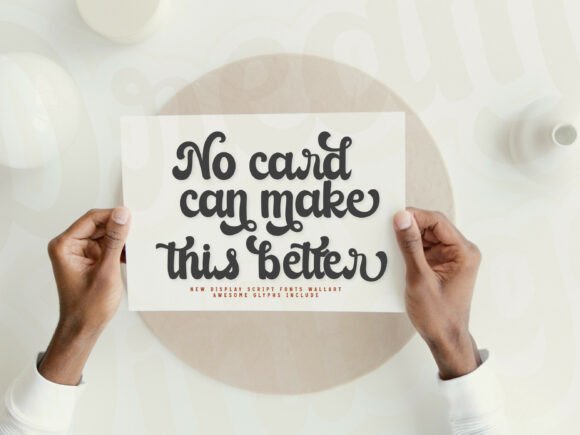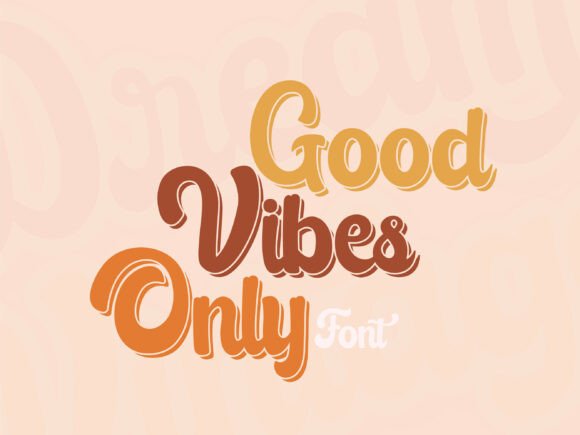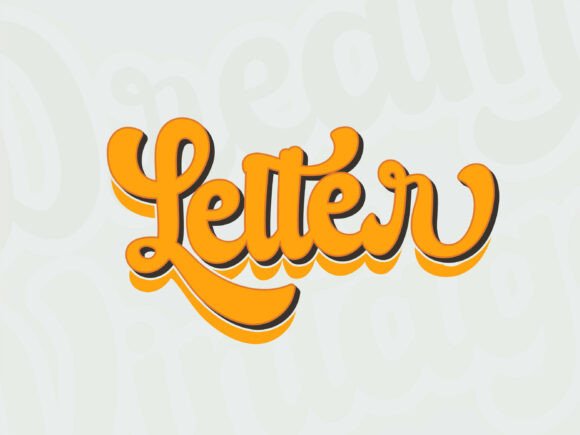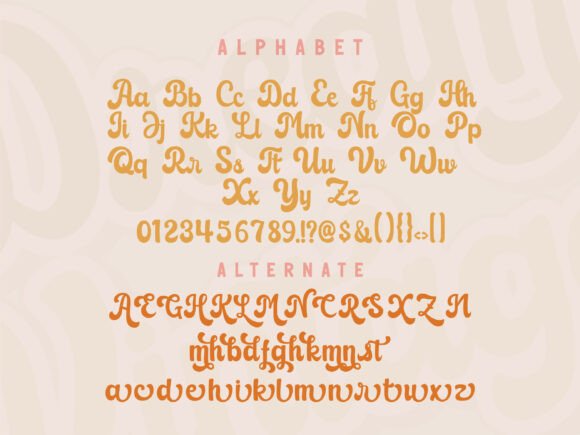
Discover the Charm of Dream Vintage Font: Elevate Your Designs with a Touch of Nostalgia
Are you looking to add a dash of vintage charm to your designs? Look no further than the Dream Vintage font, a stunning cute display script font that perfectly balances nostalgic flair with a modern, playful twist. This beautiful typeface is designed to transport your designs back to a golden era of charm, making it an exceptional choice for a wide range of creative projects.
The Unique Characteristics of Dream Vintage Font
The Dream Vintage font features thick, pillowy letterforms and smooth, flowing curves that radiate a cozy, retro aesthetic. Its distinctive style is reminiscent of a bygone era, evoking feelings of warmth and nostalgia. The font’s unique characteristics make it perfect for designers and crafters looking to add a touch of personality to their work.
One of the standout features of the Dream Vintage font is its Alternate Glyphs. These glyphs allow you to customize your typography with unique swashes and character variations, giving you a truly bespoke look. With the Dream Vintage font, you can create stunning headers, playful product packaging, and evocative posters that are sure to capture the attention of your audience.
The Dream Vintage font is incredibly versatile, making it suitable for a wide range of design projects. Whether you’re building a brand from scratch or adding a touch of soul to your existing designs, this font is sure to impress. Here are just a few ideas to get you started:
- Branding projects: Use the Dream Vintage font to create a unique and memorable brand identity that stands out from the crowd.
- Apparel design: Add a touch of vintage charm to your t-shirt designs, hoodies, and other apparel with this beautiful font.
- Stickers and social media graphics: Create eye-catching stickers and social media graphics that are sure to grab attention with the Dream Vintage font.
- Lifestyle blogs: Use the Dream Vintage font to create stunning headers and typography for your lifestyle blog.
- Product packaging: Add a touch of personality to your product packaging with this beautiful font.
- Posters and prints: Create evocative posters and prints that are sure to capture the attention of your audience.
Pairing the Dream Vintage Font with Other Design Elements
The Dream Vintage font pairs beautifully with soft pastel palettes and grainy textures, creating a curated, timeless look that’s perfect for a wide range of design projects. Here are a few tips for pairing the Dream Vintage font with other design elements:
- Soft pastel palettes: Combine the Dream Vintage font with soft pastel colors to create a warm and inviting design.
- Grainy textures: Add a touch of texture to your design with grainy textures that complement the Dream Vintage font.
- Minimalist designs: Use the Dream Vintage font to add a touch of personality to minimalist designs.
In conclusion, the Dream Vintage font is a beautiful and versatile typeface that’s perfect for designers and crafters looking to add a touch of vintage charm to their designs. With its unique characteristics, Alternate Glyphs, and wide range of design applications, this font is sure to become a staple in your design toolkit. So why wait? Download the Dream Vintage font today and start creating stunning designs that transport your audience back to a golden era of charm.
Whether you’re building a brand from scratch or adding a touch of soul to your existing designs, the Dream Vintage font is sure to impress. Its nostalgic flair and modern, playful twist make it the perfect choice for a wide range of creative projects. So go ahead, get creative, and see what amazing designs you can create with the Dream Vintage font!